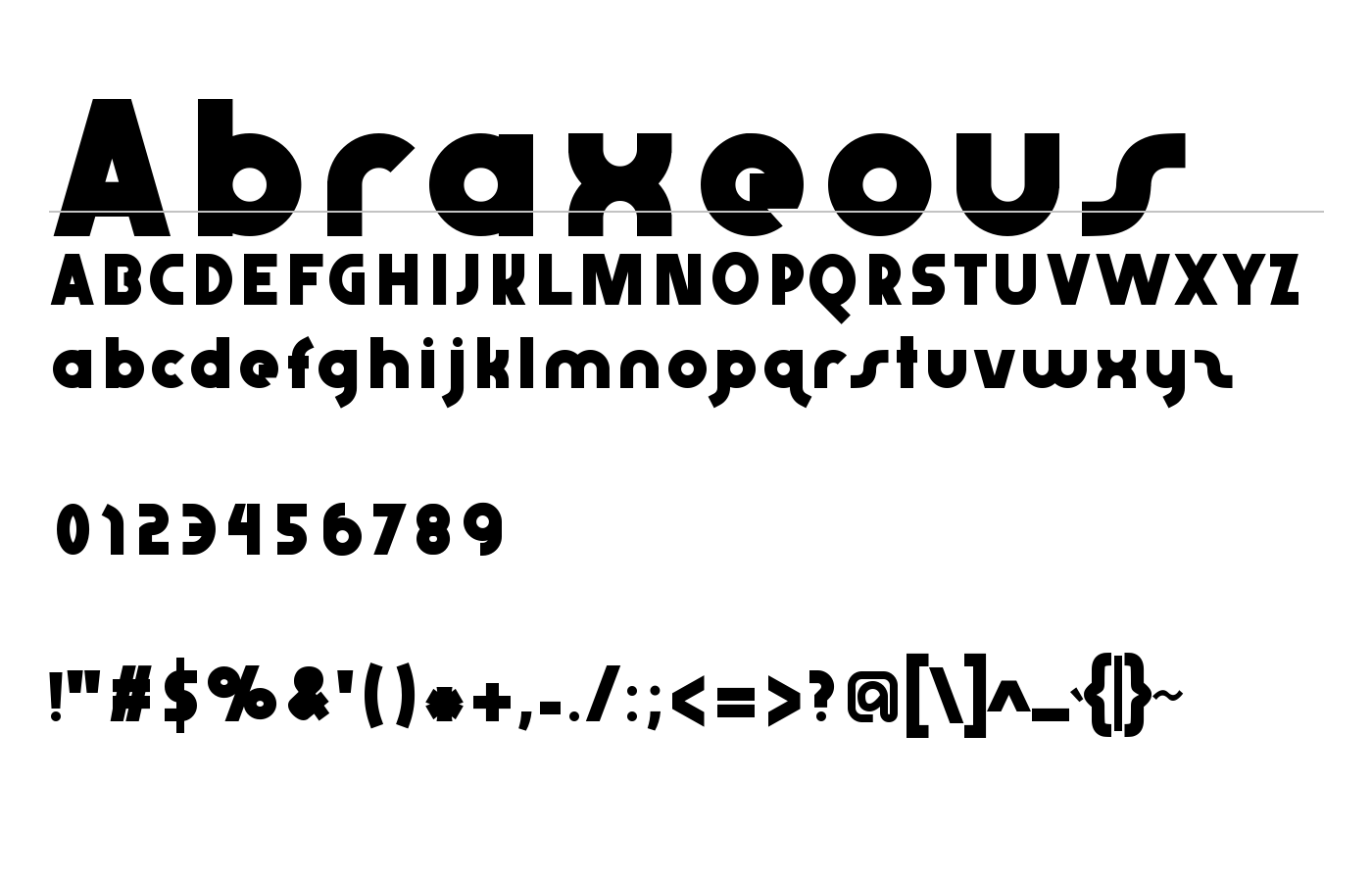
Abraxeous is a bold, geometric sans serif font with a modern and slightly futuristic feel. Its strong, blocky letterforms feature unique angular cuts and an overall sense of solidity that make it stand out for headlines, logos, and display uses where attention and impact are desired. This font works well in creative branding, posters, and editorial designs that want to convey confidence with a contemporary edge.
Abraxeous Font
About Abraxeous Font
| Font family | Abraxeous Font |
| Designer | Max Infeld - Xerographer Fonts |